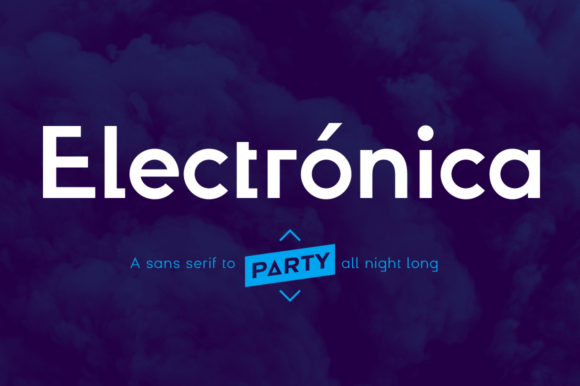
Introduction to Electrónica Family Font
Electrónica font family has been designed for Graviton Font Foundry by Pablo Balcells in 2019.
It is a rounded, geometric sans serif typeface with display details and sharp, playful shapes for a fun and laid back usage Electrónica has been conceived to be most suitable for logos, headlines and display design pieces as well as short length text blocks.
Key Features of Electrónica Family Font